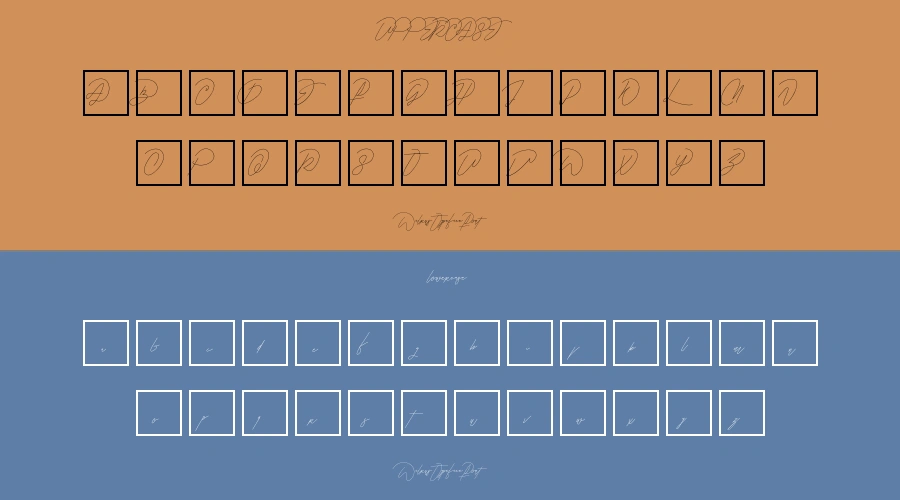
About Walrus Typeface Font
Designed with precision, Walrus Typeface Font merges hairline details with visual appeal in every character. This versatility makes it particularly effective for environmental graphics, where memorability and professional standards directly impact communication quality. Each letterform demonstrates meticulous craftsmanship.
Technical excellence shines through elements like structural clarity and expert sets, enhancing typographic versatility. In data tables settings, Walrus Typeface Font proves its worth through superior color consistency. The thoughtful execution of stem weight and artistic merit ensures professional results.
Walrus Typeface Font |